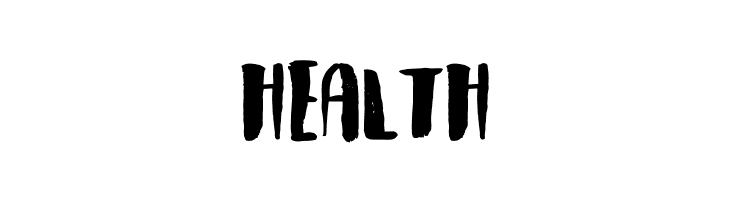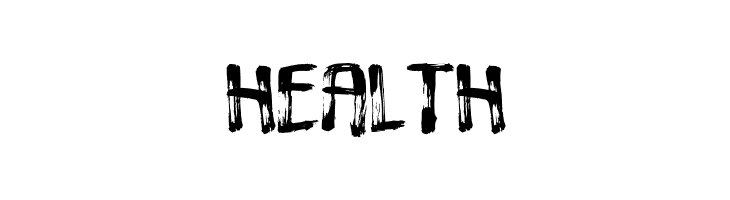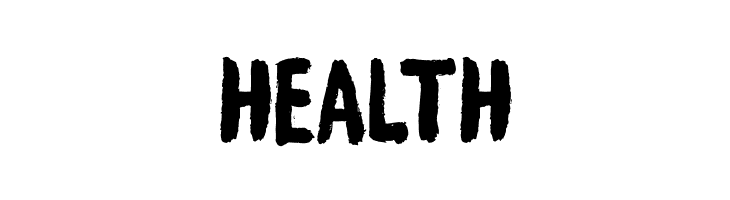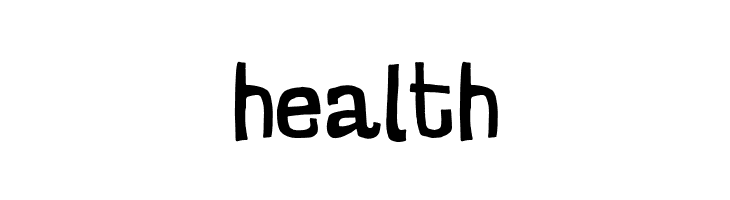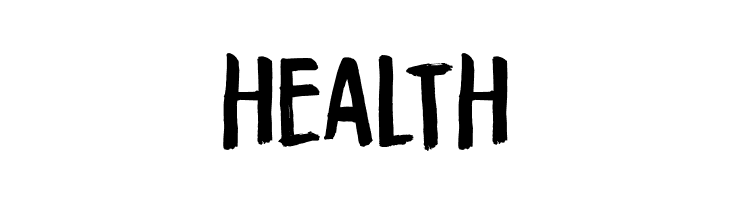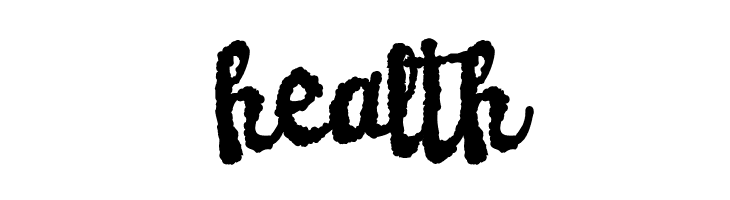
A bold, brush-style font with a hand-painted, graffiti-like appearance.
A bold, brush-style font with a hand-painted, artistic look.
A bold, expressive brush-style font with dynamic strokes and a hand-painted look.
A bold, hand-painted style font with textured, brush-like strokes.
A bold, expressive brush-style font with dynamic, hand-painted strokes.
A bold, hand-painted font with a textured, dynamic appearance.
A playful, hand-drawn font with a quirky and artistic style.
A bold, stencil-style font with a rugged, distressed texture.
A bold, hand-painted font with a textured, artistic style.
A bold, playful handwritten font with textured, irregular strokes.